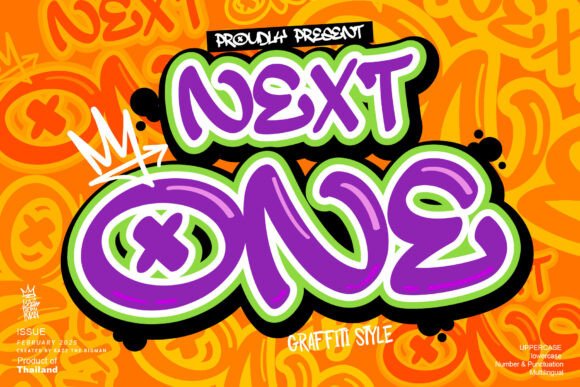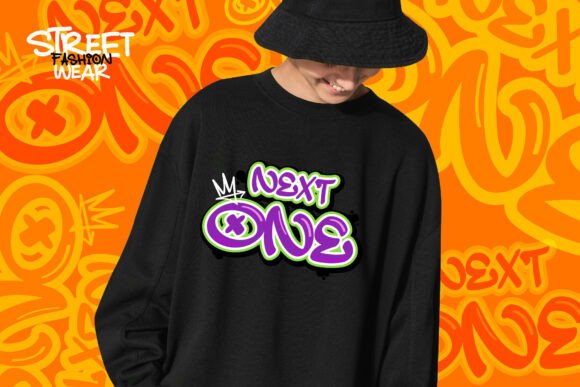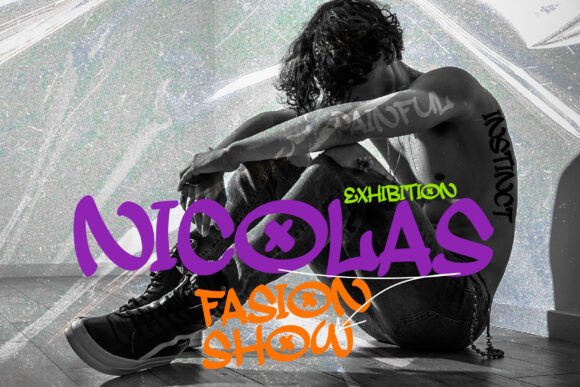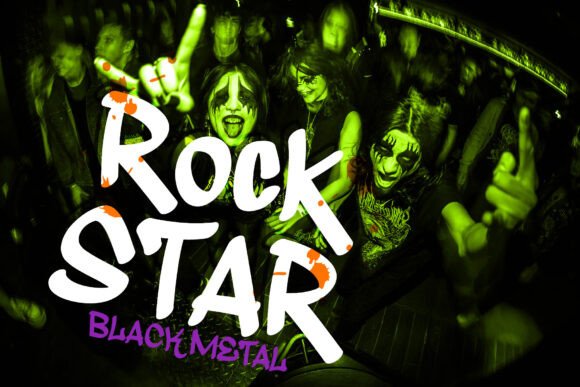
Next One Font: A Bold Graffiti Font for Urban Designs & Posters
About the Next One Font
Welcome to the world of Next One Font, a typeface that will inspire your next great project. Unleash the pulse of raw, urban energy with Next One Font. This distinctive marker-style graffiti font has been meticulously crafted to inject your designs with an audacious, cutting-edge, and inventive atmosphere. Rendered with a bold intent, this typeface embodies the edgy spirit of graffiti art, transforming the simplest of designs into a powerful visual statement. Immerse in the urban culture and let your creativity soar with Next One Font.
Next One Font excels in headline applications, short impactful phrases, and branding elements where a bold, rebellious statement is desired. It’s ideal for posters, streetwear designs, and edgy product packaging. However, its strong character and limited character set make it unsuitable for body text or UI elements requiring high readability.
Pairing Next One Font effectively requires considering its raw energy. A clean sans-serif like Montserrat or a geometric sans-serif such as Futura would provide a strong contrast and enhance readability in supporting text. For a more playful approach, a rounded sans-serif could be used.
The font’s core personality is undeniably bold and rebellious. Its raw, marker-like strokes project an urban, street-art aesthetic, making it perfect for brands that want to convey a sense of edgy modernity and unconventionality.
Next One Font Usage Examples
Next One Font Example